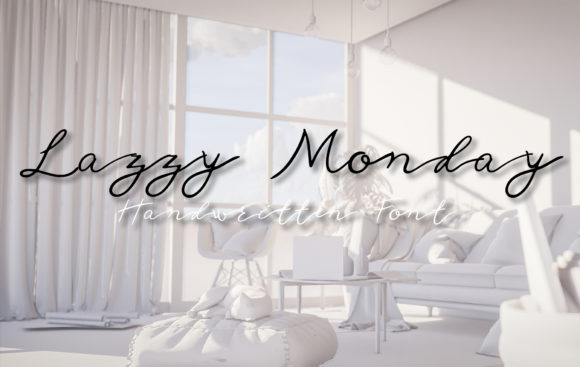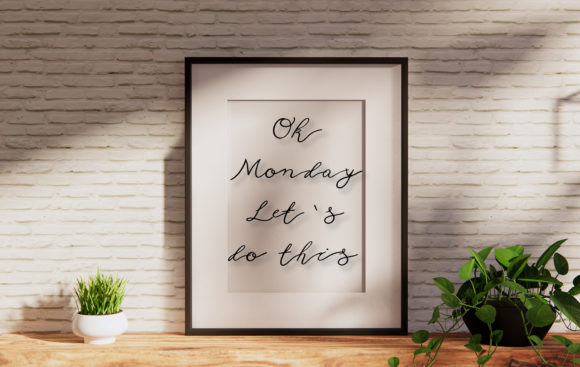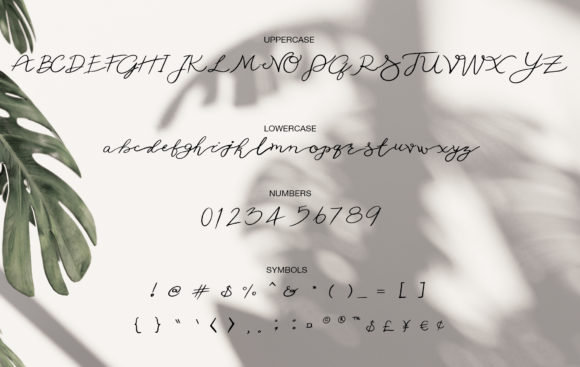
HomeScript FontsLazzy Monday Font Script Fonts Lazzy Monday Font FacebookXPinterestWhatsApp Lazzy Monday Font Poster 2 Lazzy Monday Font Poster 3 About Lazzy Monday Font Lazzy Monday is a relaxed and easygoing script, just like a Blue Monday. Get inspired by its modern simplicity. DOWNLOAD ON CREATIVE FABRICAThis font is sold and delivered by Creative Fabrica. Font Canyon may earn a commission if you buy through this link. People also explored Dellione Font Welcome Farmhouse Font Millano Font Baby Cute Font Sweety Candy Font Verllina Font Julleha Font Clementlize Font Monalisa Font 303 0 TagsLazzy Monday Font Previous articleBanitta Family FontNext articleSignature Cocktails Duo Font LEAVE A REPLY Cancel reply Comment: Please enter your comment! Name:* Please enter your name here Email:* You have entered an incorrect email address! Please enter your email address here Website: Save my name, email, and website in this browser for the next time I comment. Personal Use Free Lover Loves Personal Use Free Read more about this font Boston Traffic Personal Use Free Read more about this font Droid Personal Use Free Read more about this font Carved Wood Personal Use Free Read more about this font BLOG Where to Buy American Fonts Online in 2024 Where to Buy American Fonts Online: The Ultimate Guide for 2024 Looking for the perfect American font to elevate your design projects? You're in the... Best Fonts for YouTube Videos: Make Your Thumbnails Stand Out Best Fonts for T-Shirt Design – Top 2025 Picks 5 Fonts That Will Dominate Design Trends in 2026